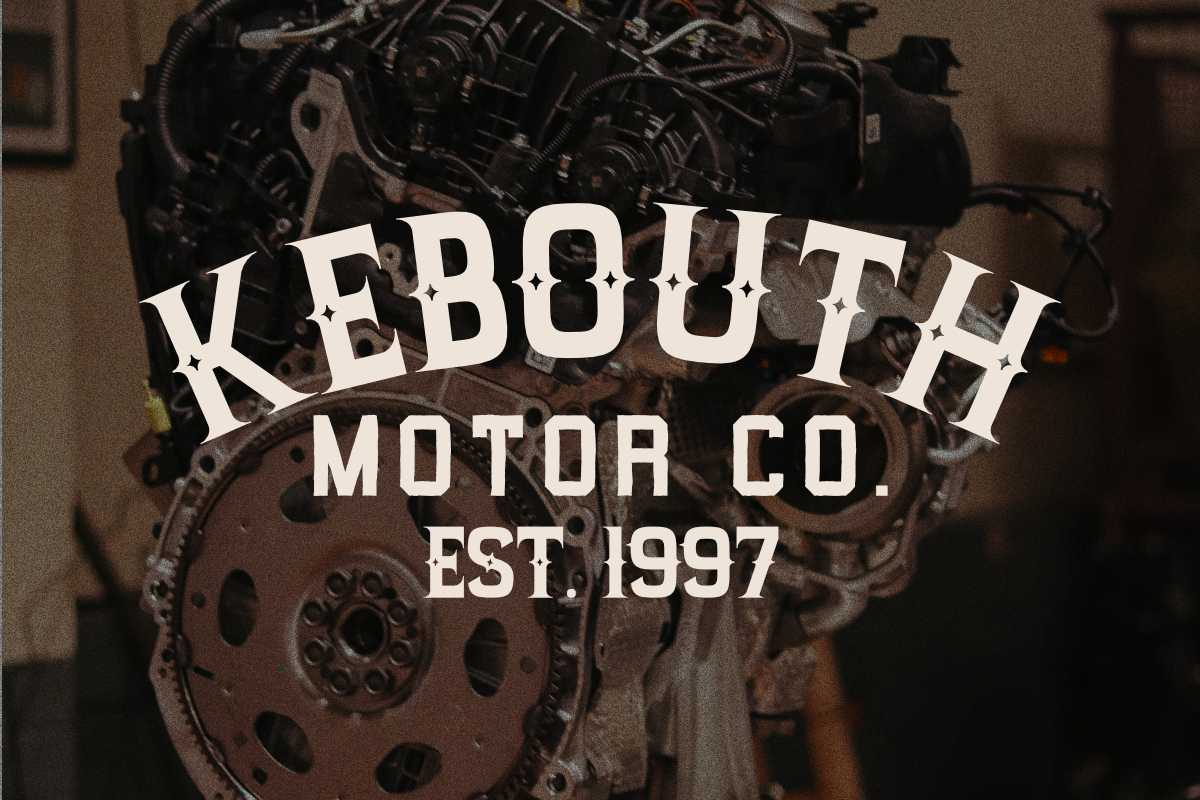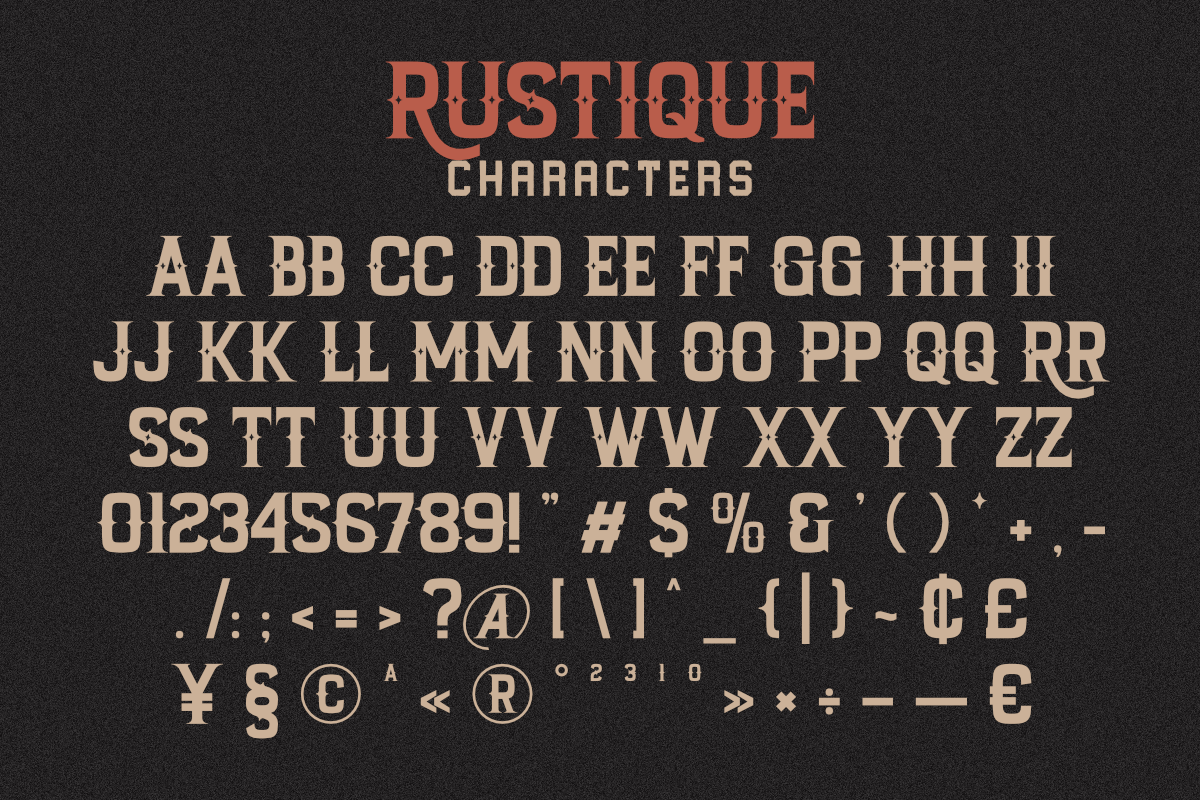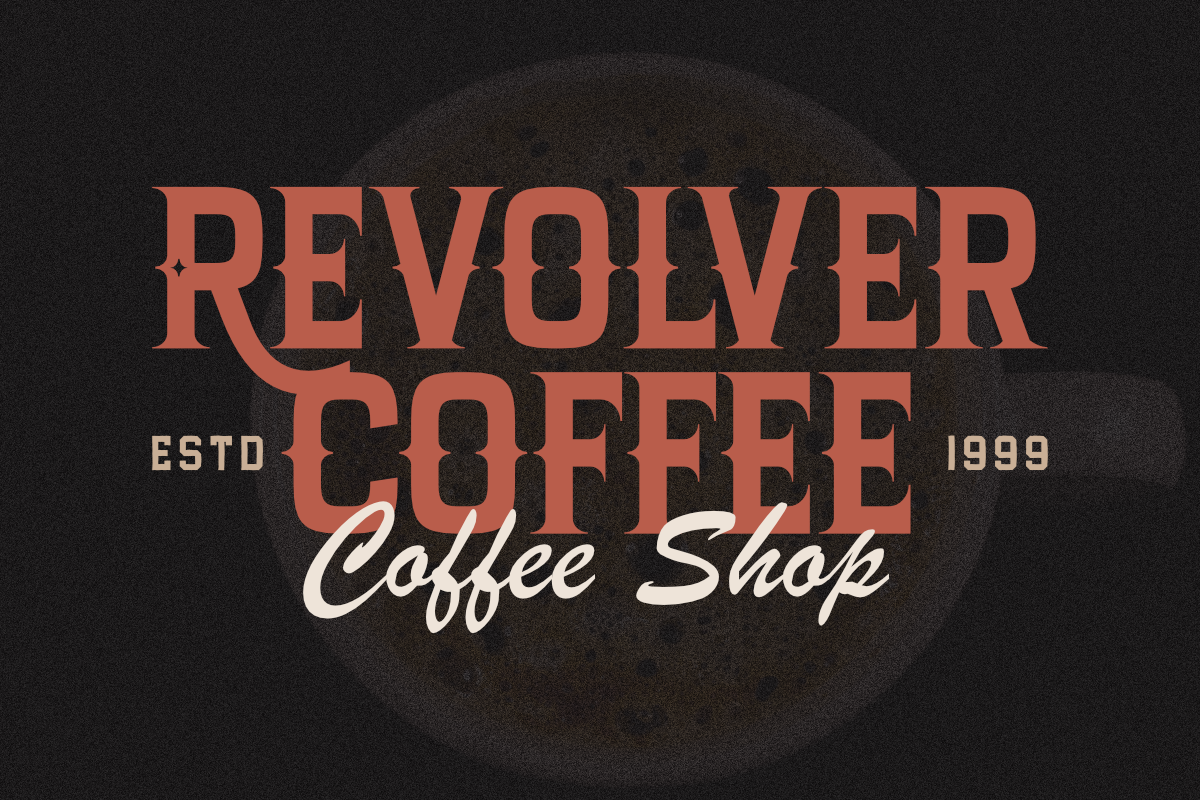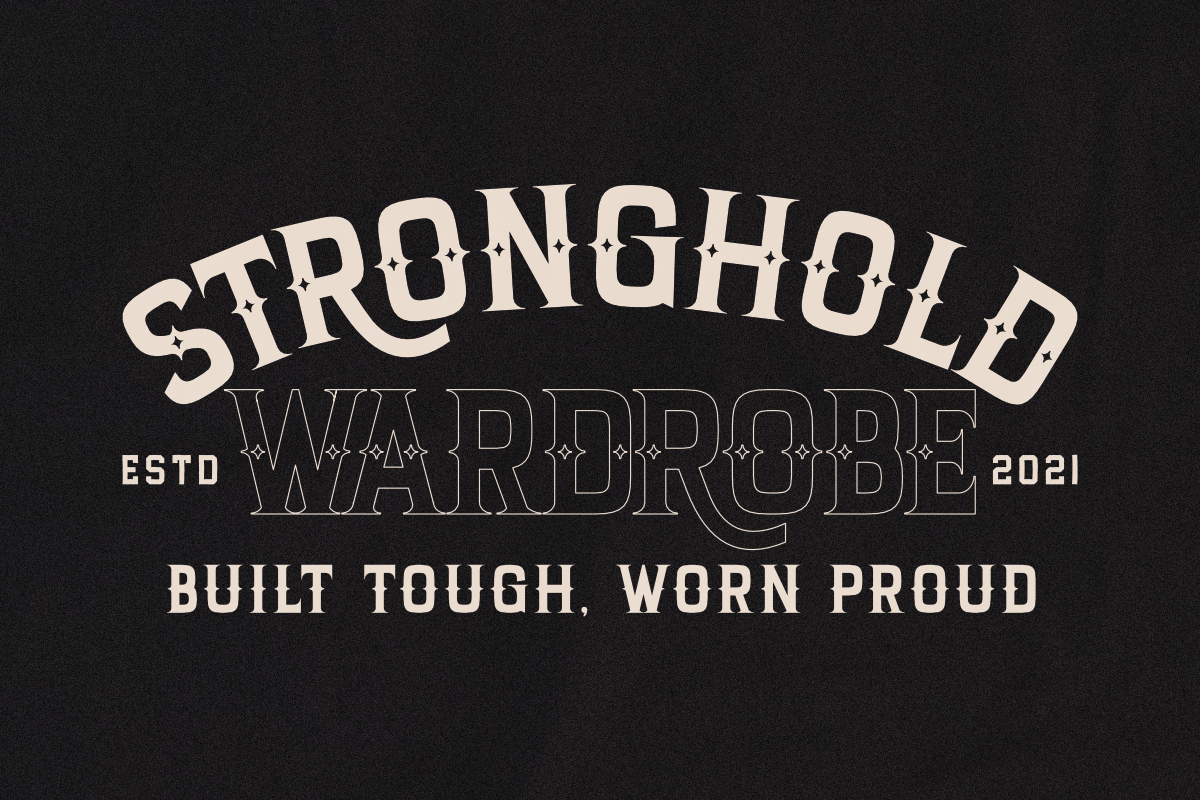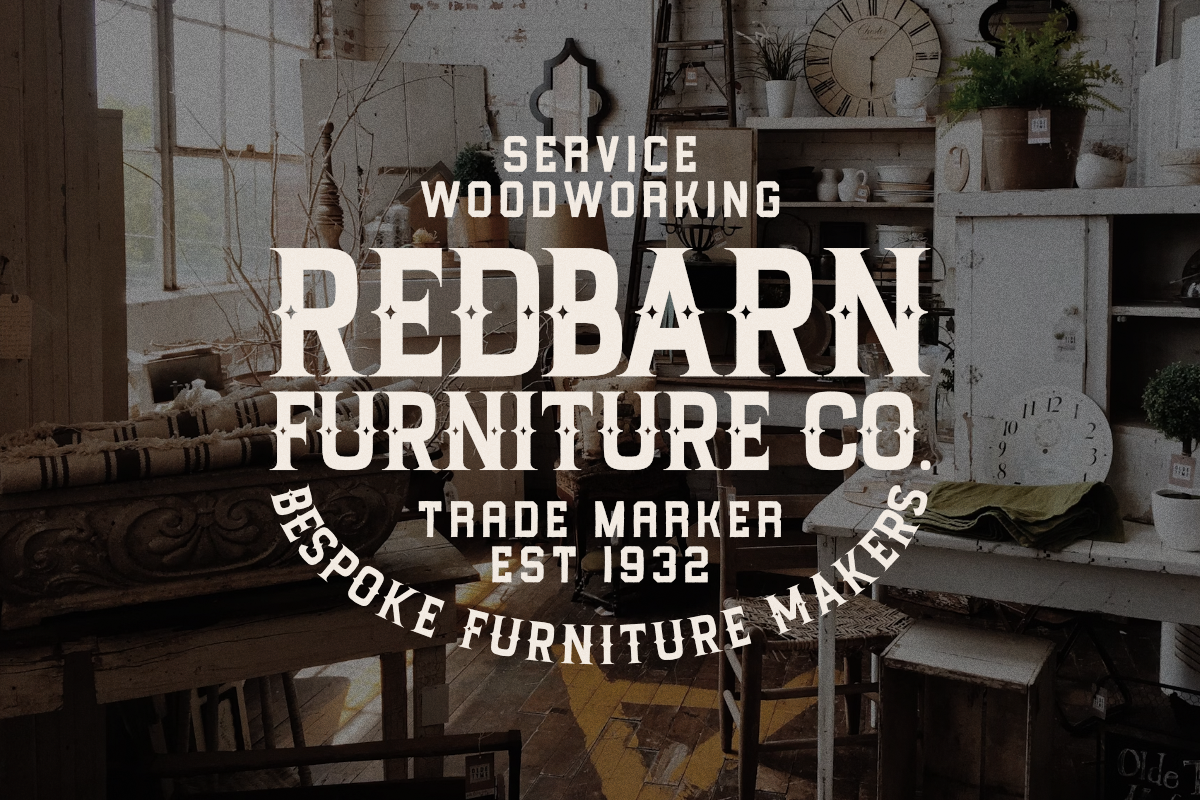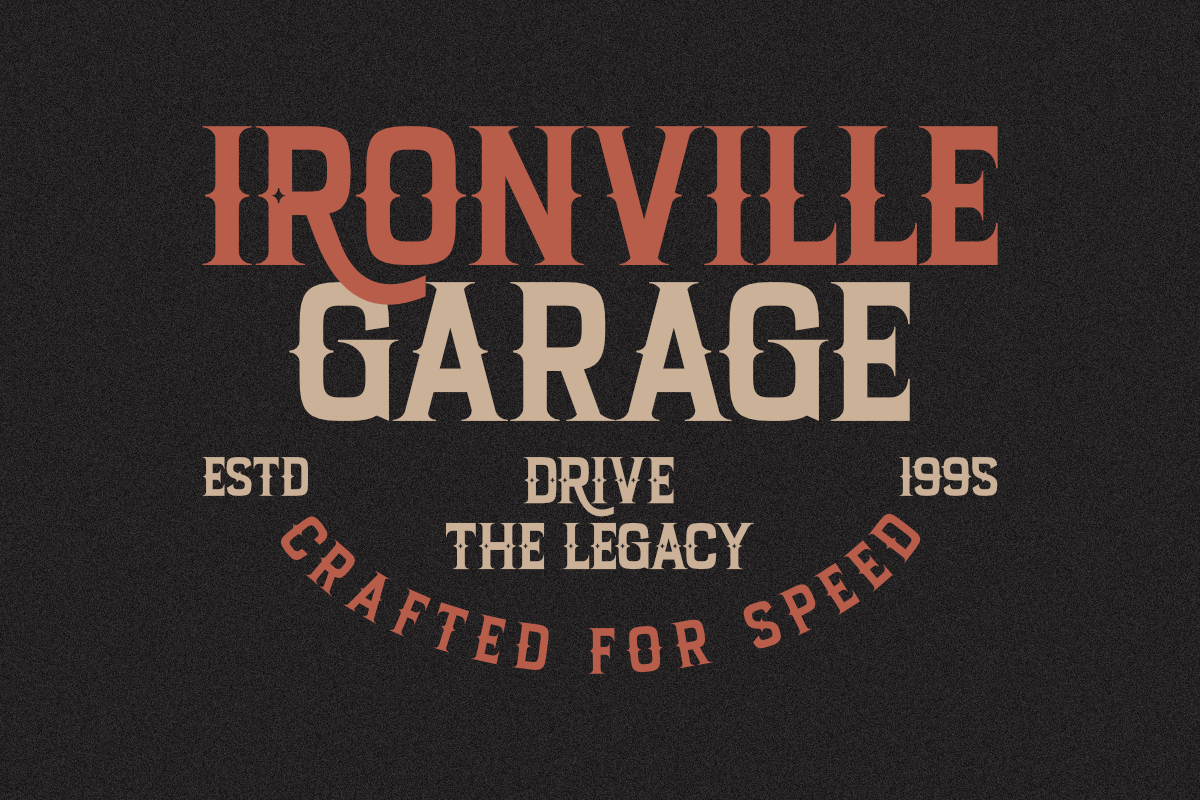
Rustique – Retro Western Serif
Rustique is a bold retro western display font that captures the essence of vintage Americana and wild west aesthetics. With its strong serifs, decorative details, and all-caps style, Rustique is perfect for creating standout logos, whiskey labels, vintage posters, apparel branding, and signage design.
This font gives your design a rustic, rugged, and handcrafted feel—ideal for brands looking to stand out with an authentic western vibe.
Use Rustique to give your project a bold, classic, and nostalgic touch.